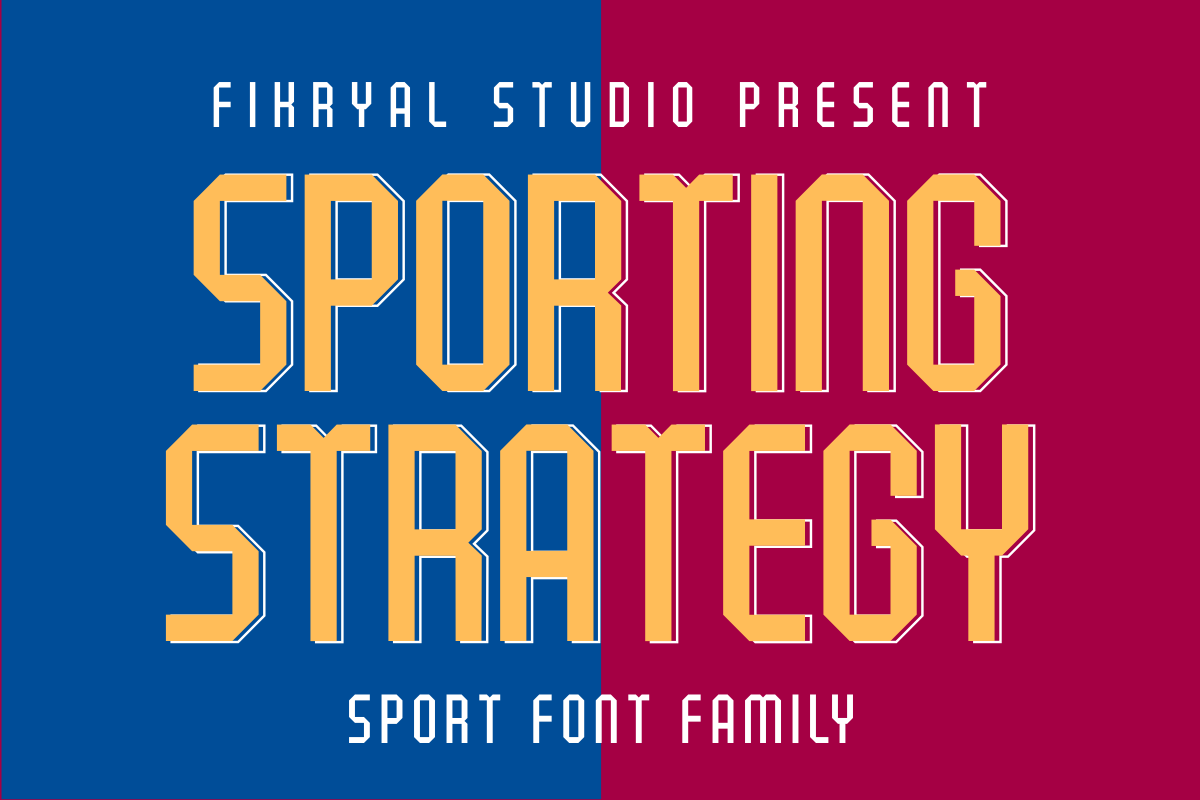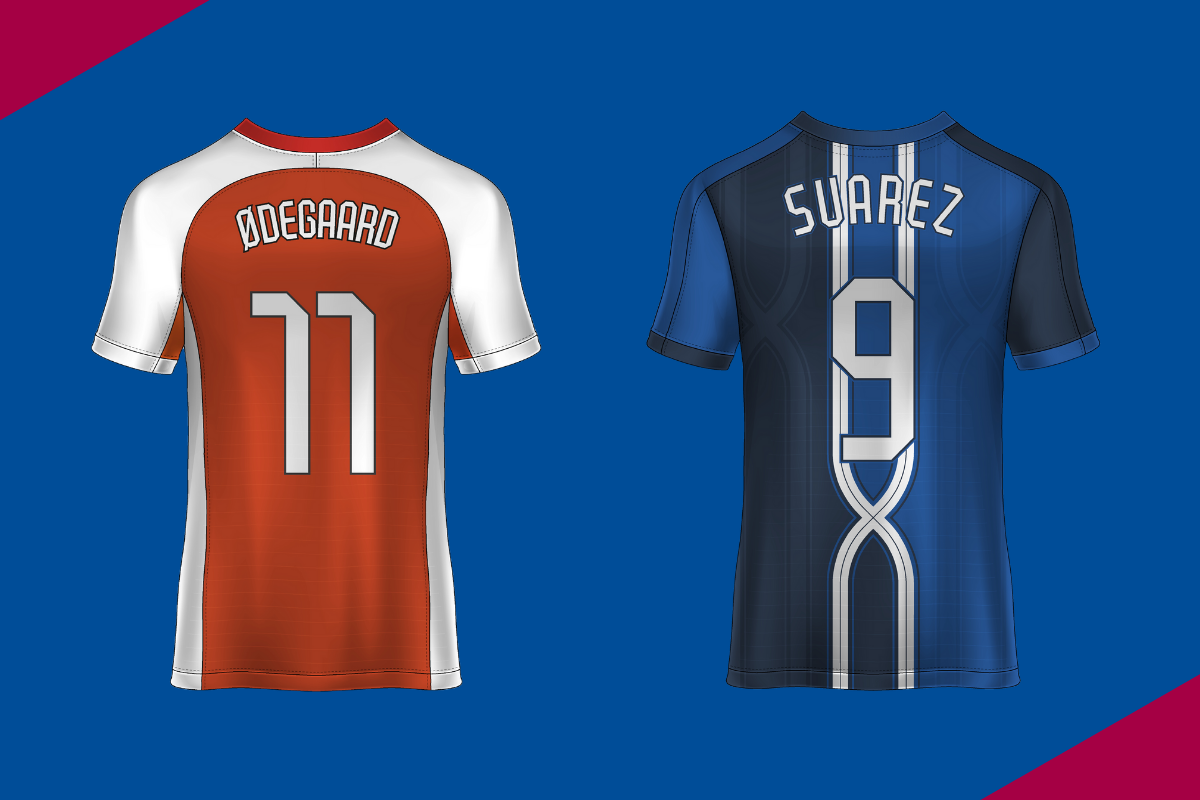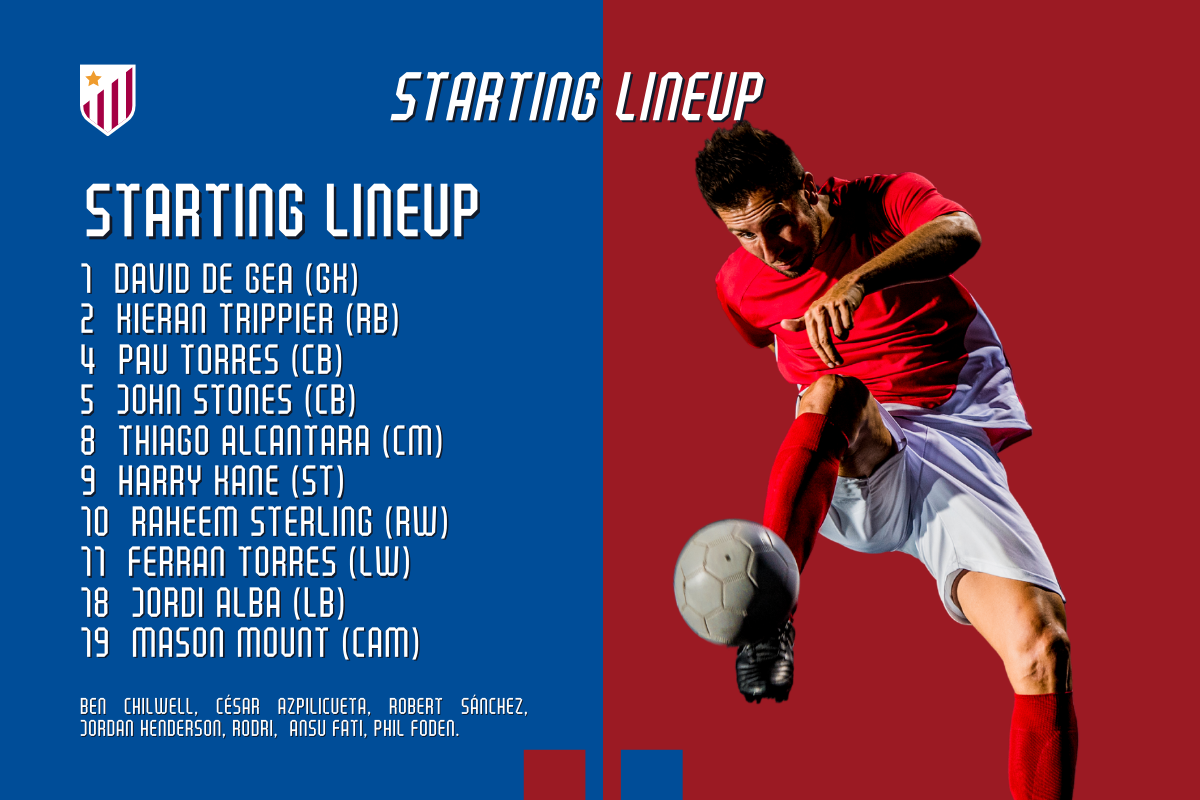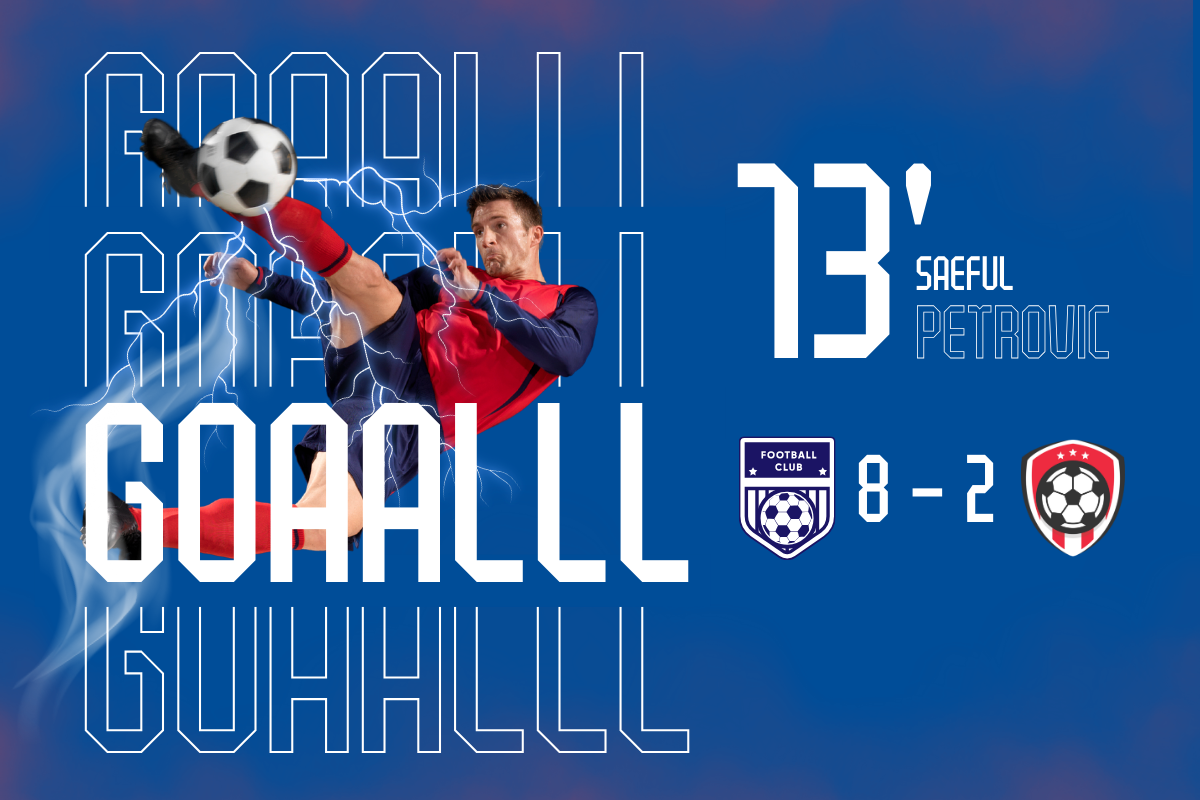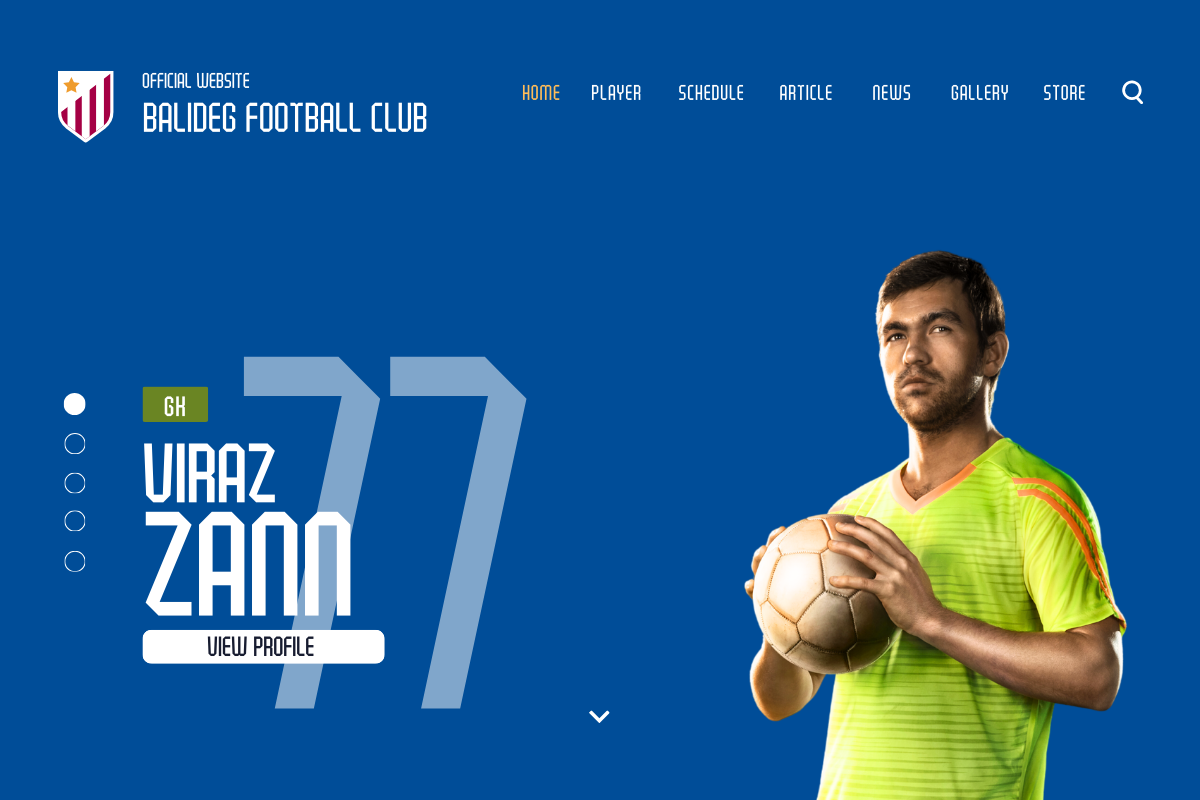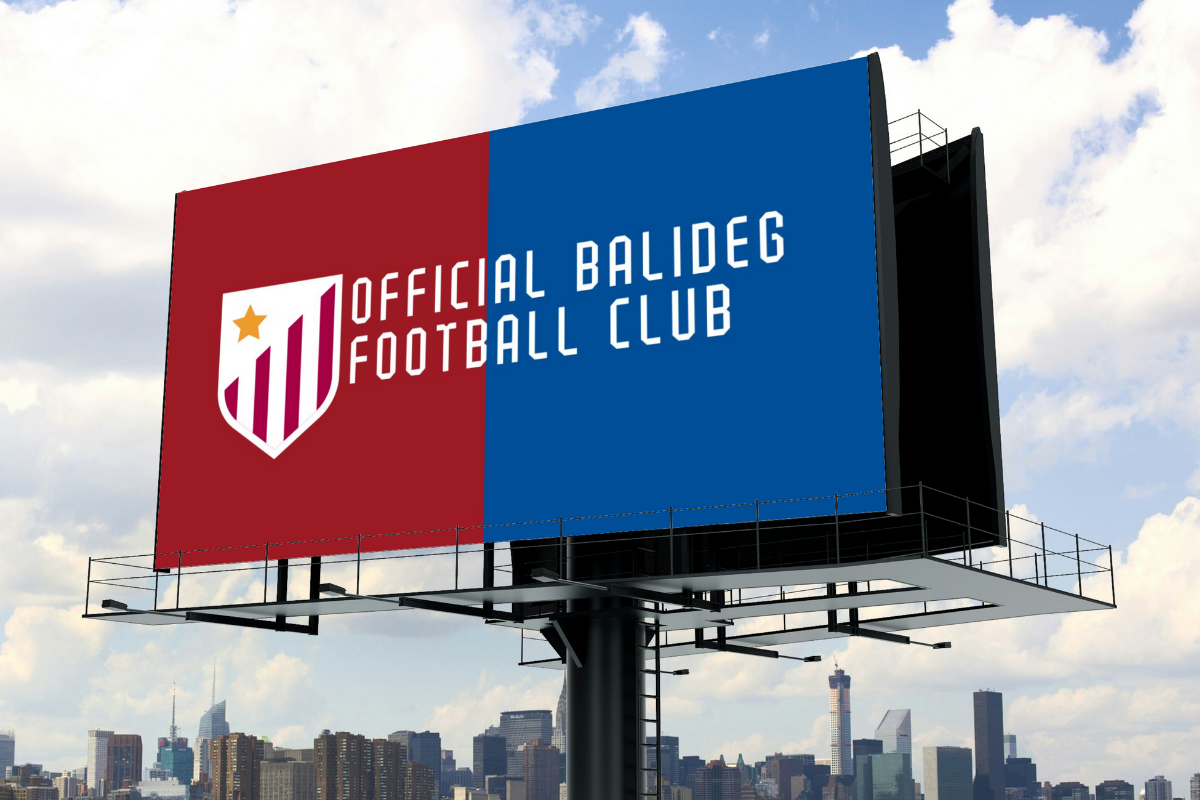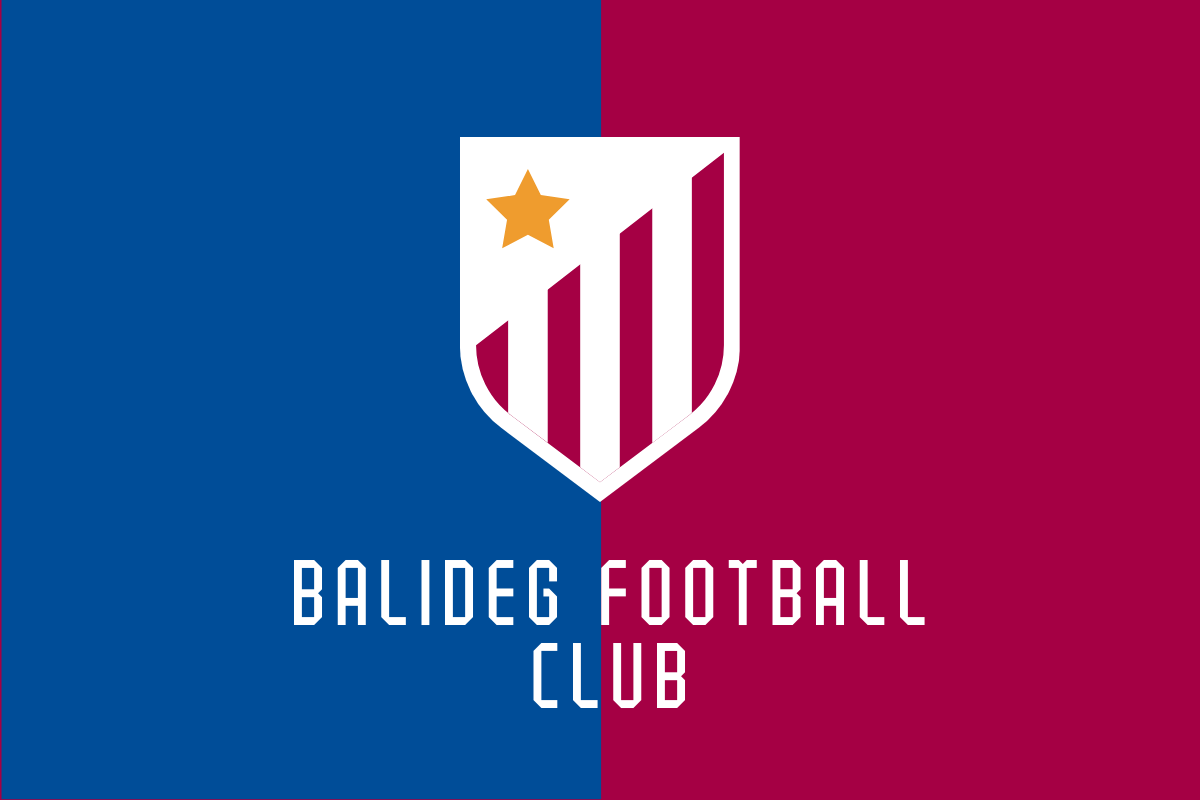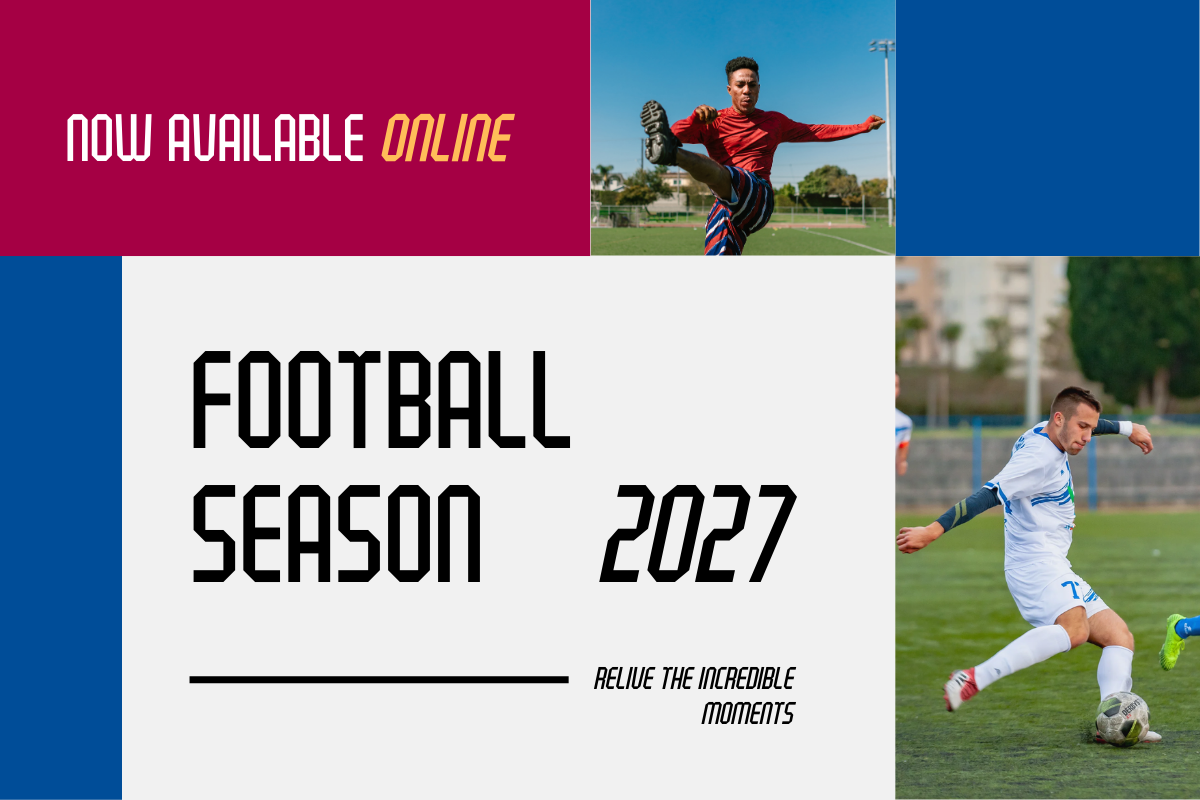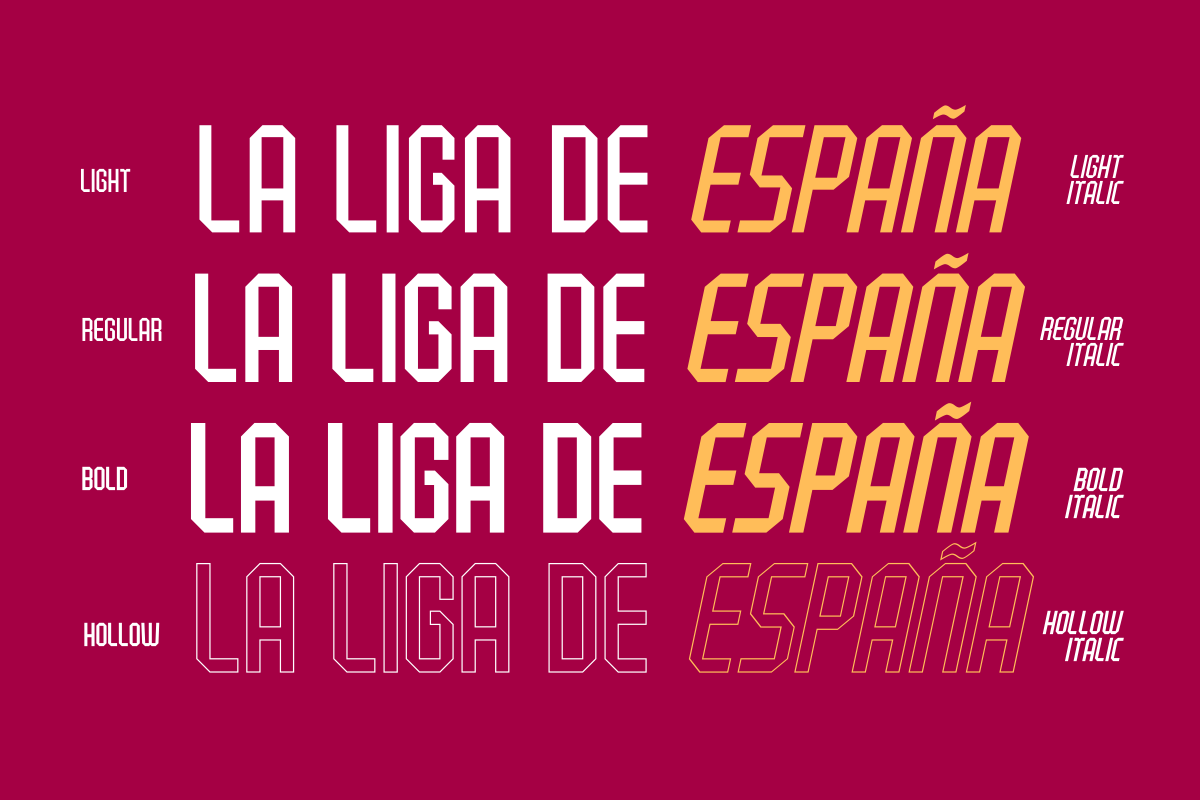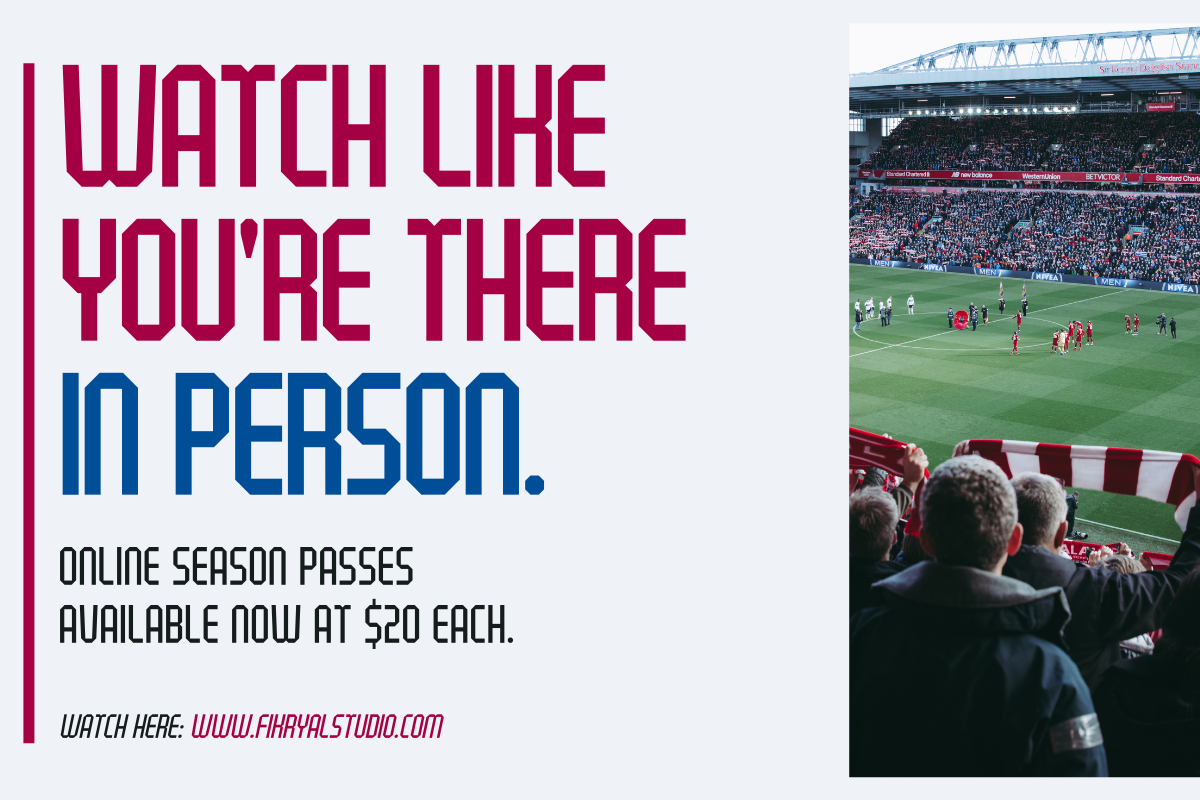
Sporting Strategy – Sport Font
Sporting Strategy is a dynamic and powerful all-caps font family designed to bring energy and precision to your sports and athletic-themed projects.
With a versatile collection of 8 unique styles—Light, Light Italic, Regular, Italic, Bold, Bold Italic, Hollow, and Hollow Italic—this font family offers a perfect balance of strength and flexibility. Whether you need a bold, impactful look for a team logo, a sleek design for sports apparel, or engaging branding for an active lifestyle brand, Sporting Strategy delivers the ideal solution.
Key Features: All Caps Design: Perfect for commanding attention and delivering bold messages. 8 Styles: A full range of styles from Light to Hollow Italic, giving you creative freedom to mix and match for various designs. Versatile Usage: Ideal for sports logos, apparel, headlines, posters, merchandise, and branding materials. Dynamic and Modern: A font designed to convey action, strength, and confidence. Enhance your sports-themed projects with the professional and versatile look of Sporting Strategy – Sport Font Family, available now for your creative needs.